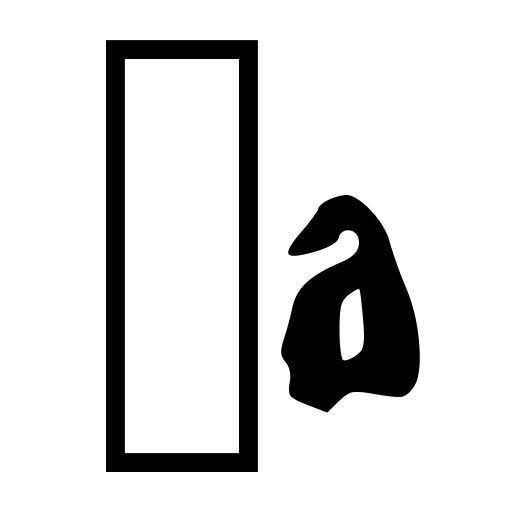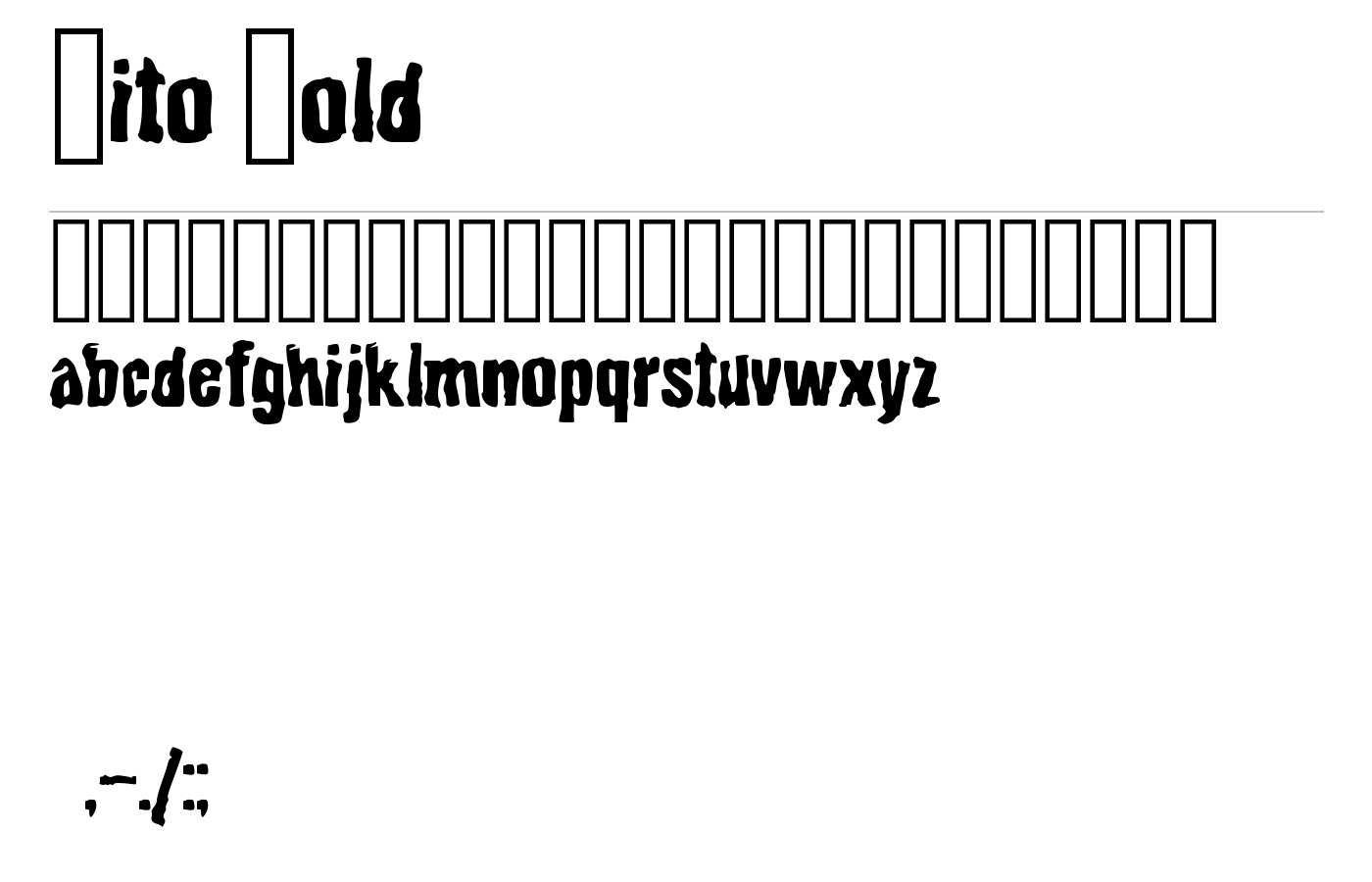
Bito Font is a bold, playful display typeface with a rough, hand-drawn texture that gives it a casual and expressive feel. Its irregular, chunky shapes and organic strokes make it ideal for creative projects seeking a quirky, vintage-inspired vibe. This font works well for eye-catching headlines, posters, and branding that aim to convey personality and uniqueness.
Bito Font
| Font family | Bito Font |
| Designer | Gabriel Ponzanelli |